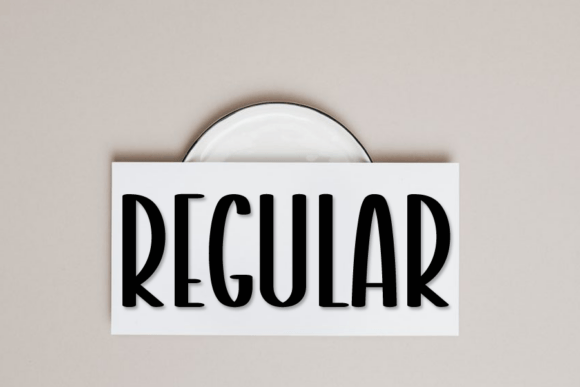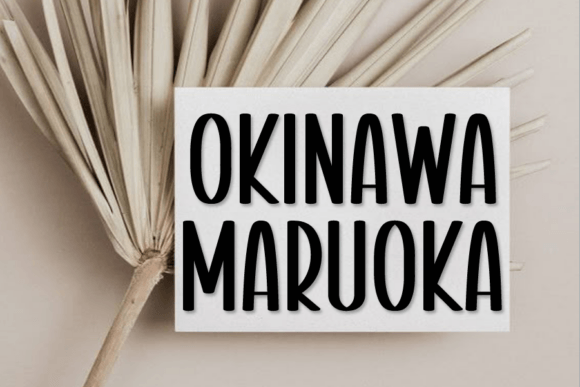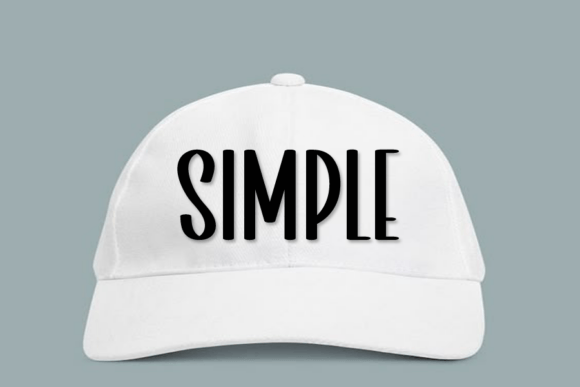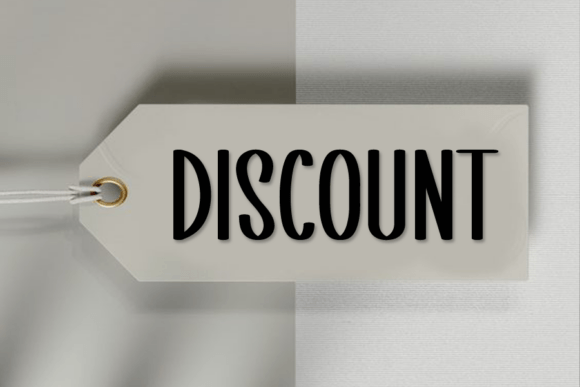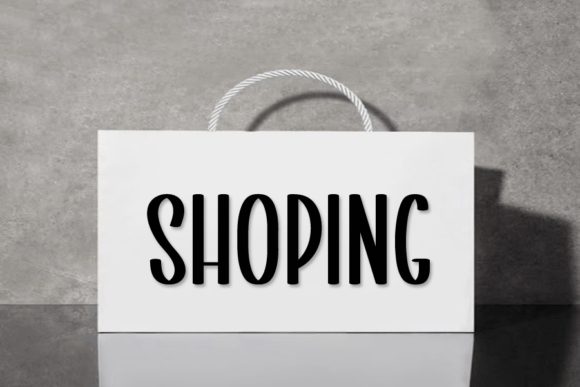
Introduction to Happy Grandma Font
Happy Grandma is a fun and quirky font.
No matter the topic, this font will be an incredible asset to your fontsโ library, as it has the potential to elevate any creation It is suitable for logotype, headline font, in corporate identity, brand identity, apparel industry, poster, music, movie, game, magazine, book, comic, cartoon, YouTube, Instagram, website, or any of your creative design projects.
Key Features of Happy Grandma Font
Why Choose Happy Grandma Font?
Happy Grandma Font offers exceptional quality and versatility, making it a valuable addition to your design toolkit. Whether you’re creating for personal projects or commercial use, Happy Grandma Font delivers professional results.